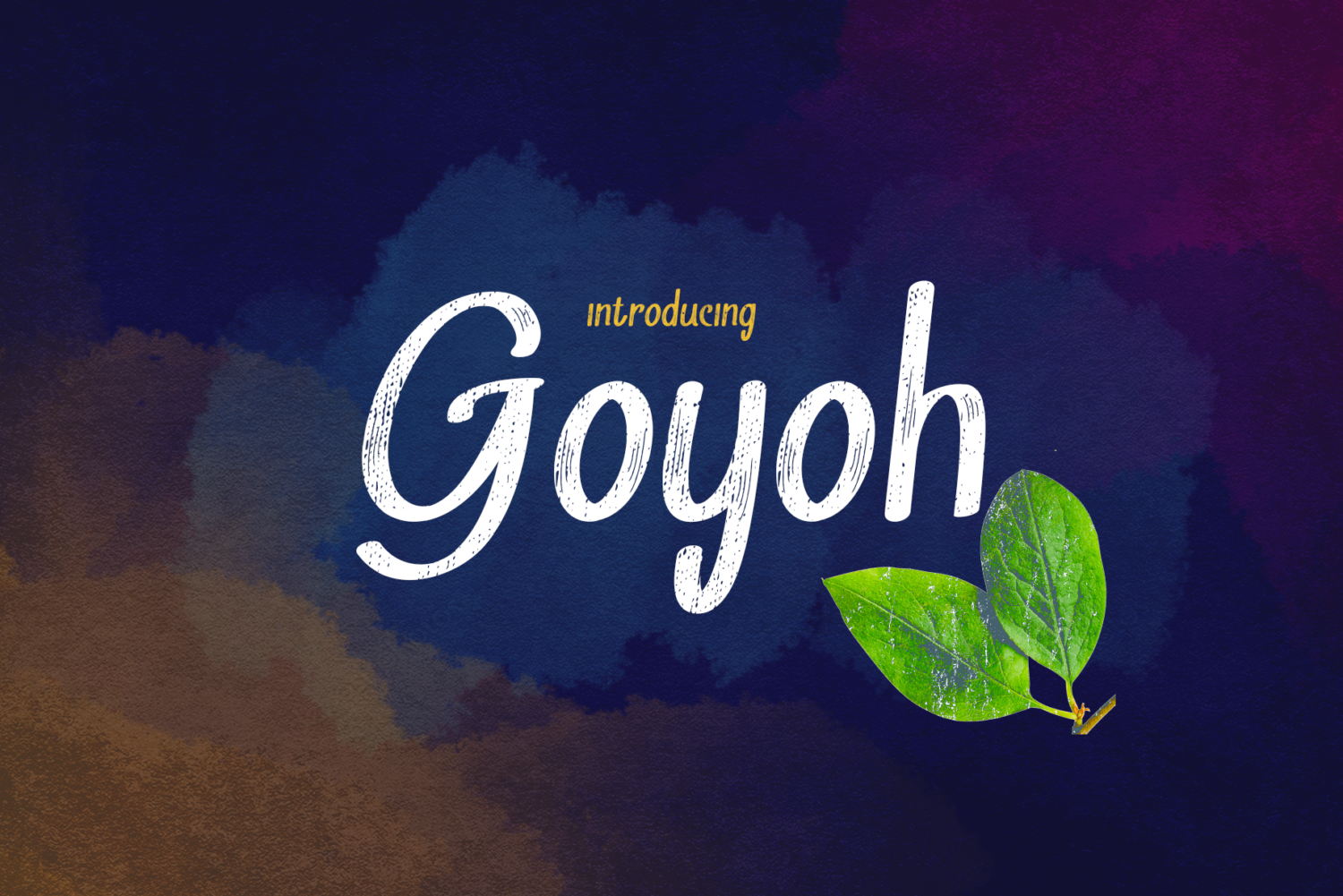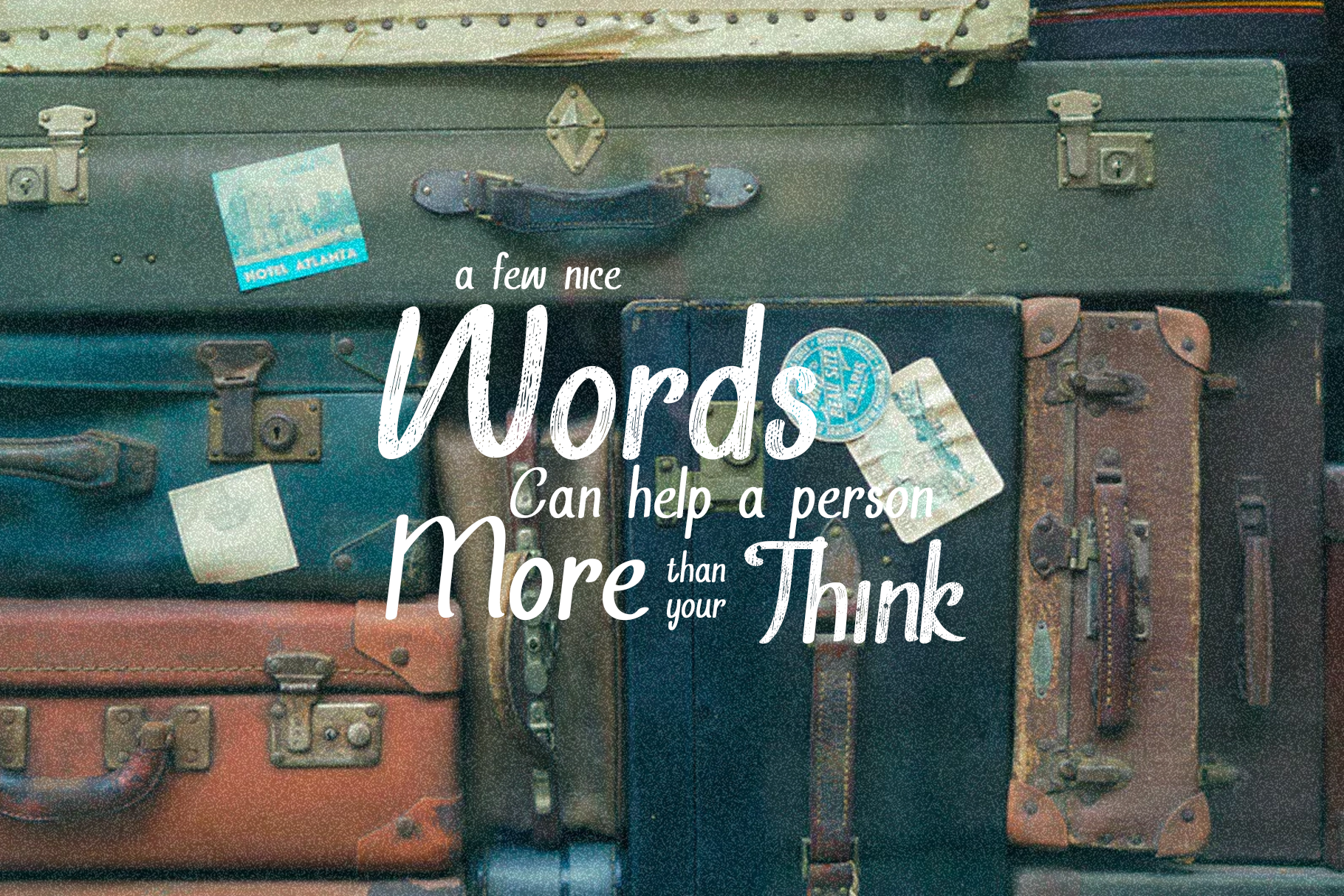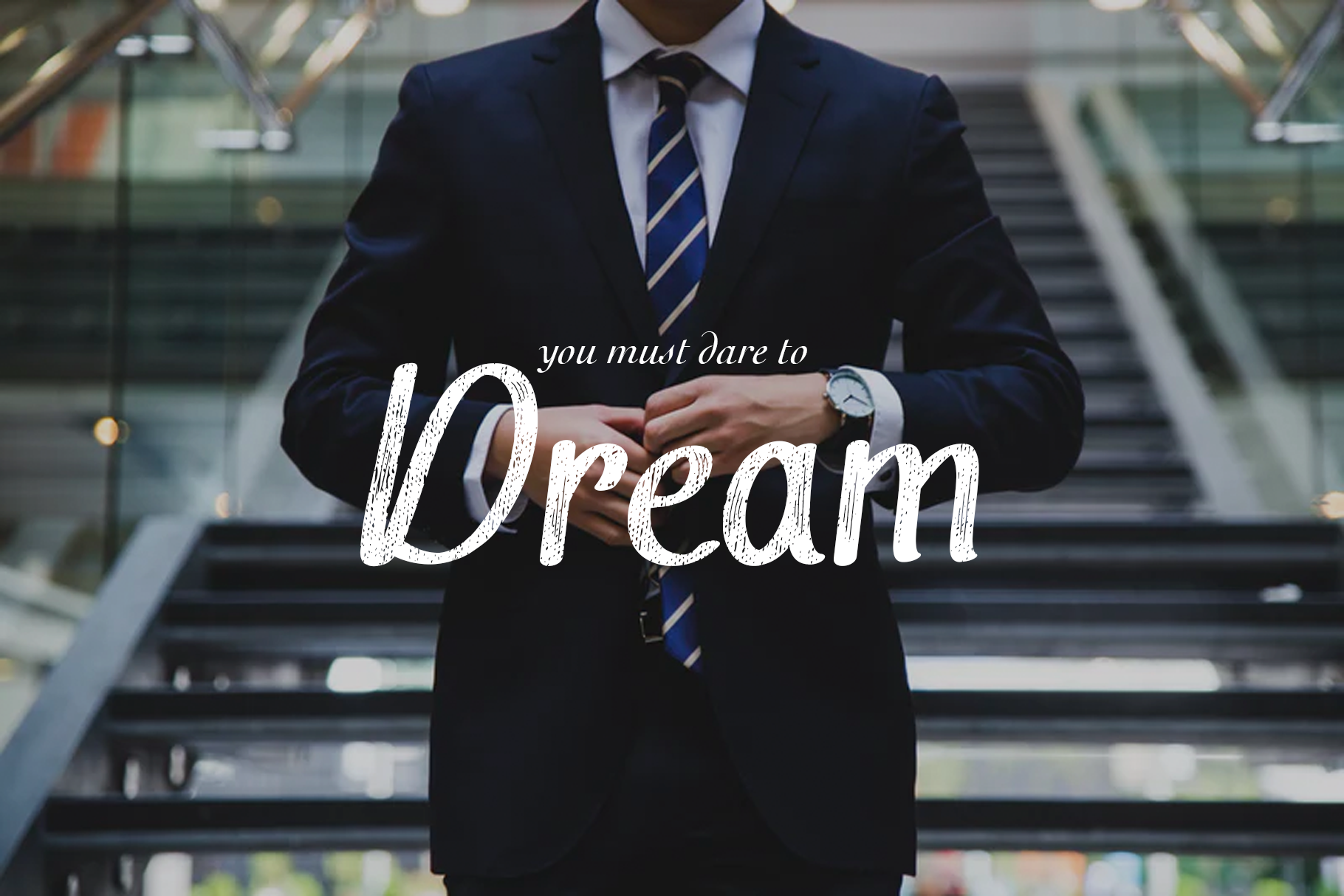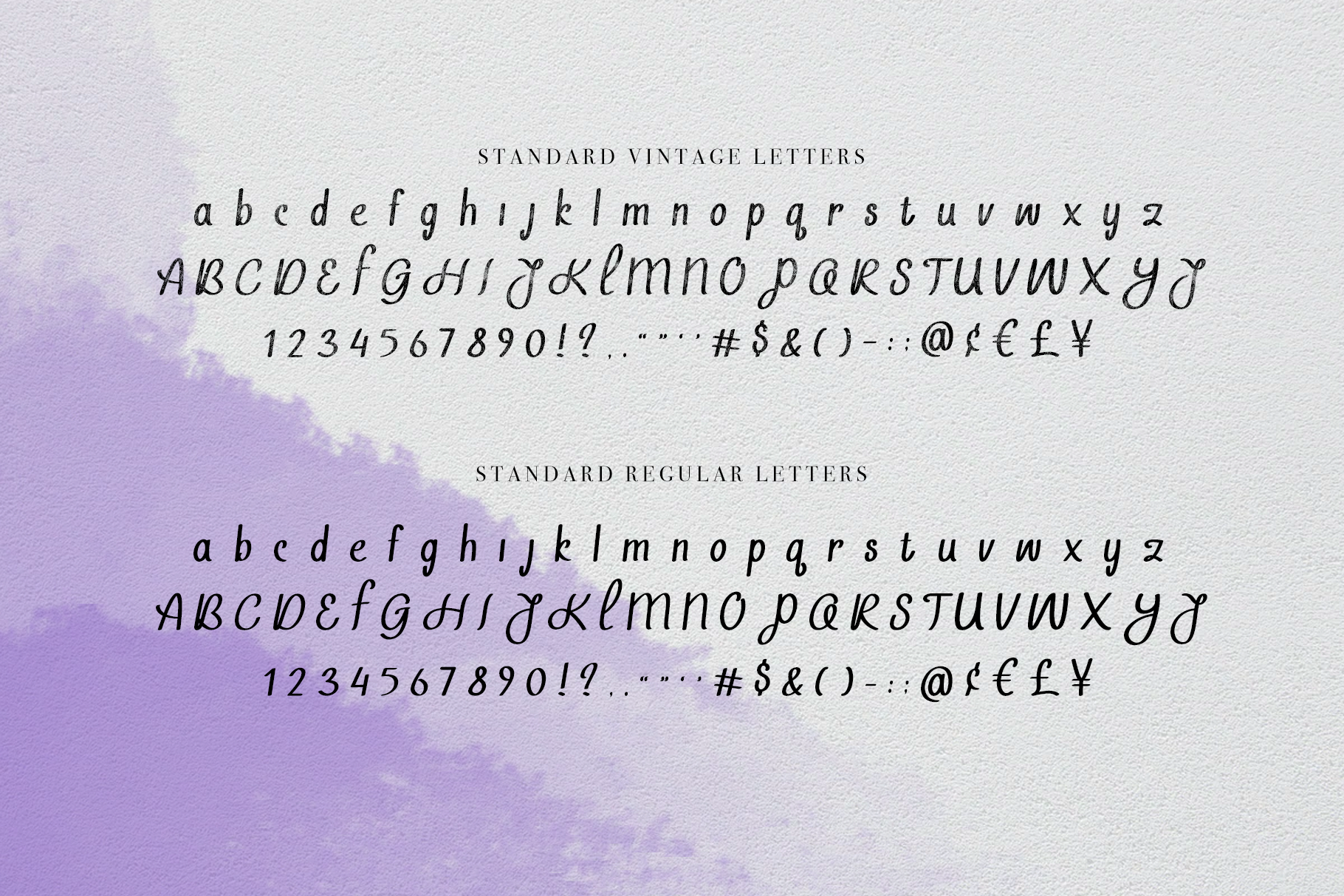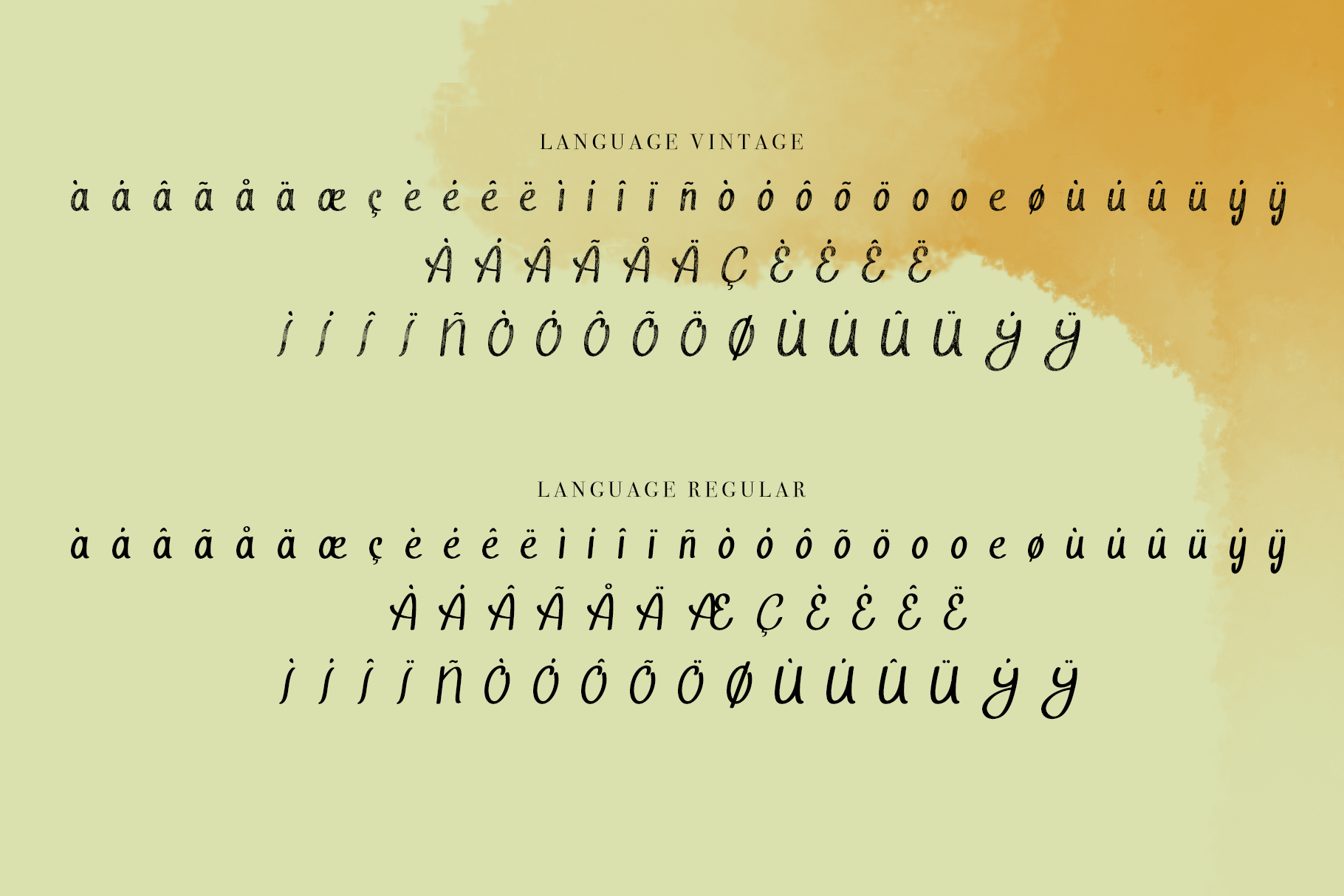
Goyoh Free Font
Goyoh Free Font is a display font with a unique stunning look. It will look particularly adept when used in logos, branding, packaging design, and much more. This masterfully designed typeface is a true must-have. This free typeface was designed by a talented SkaΒ .la. If you like it don’t forget to check out the full version.